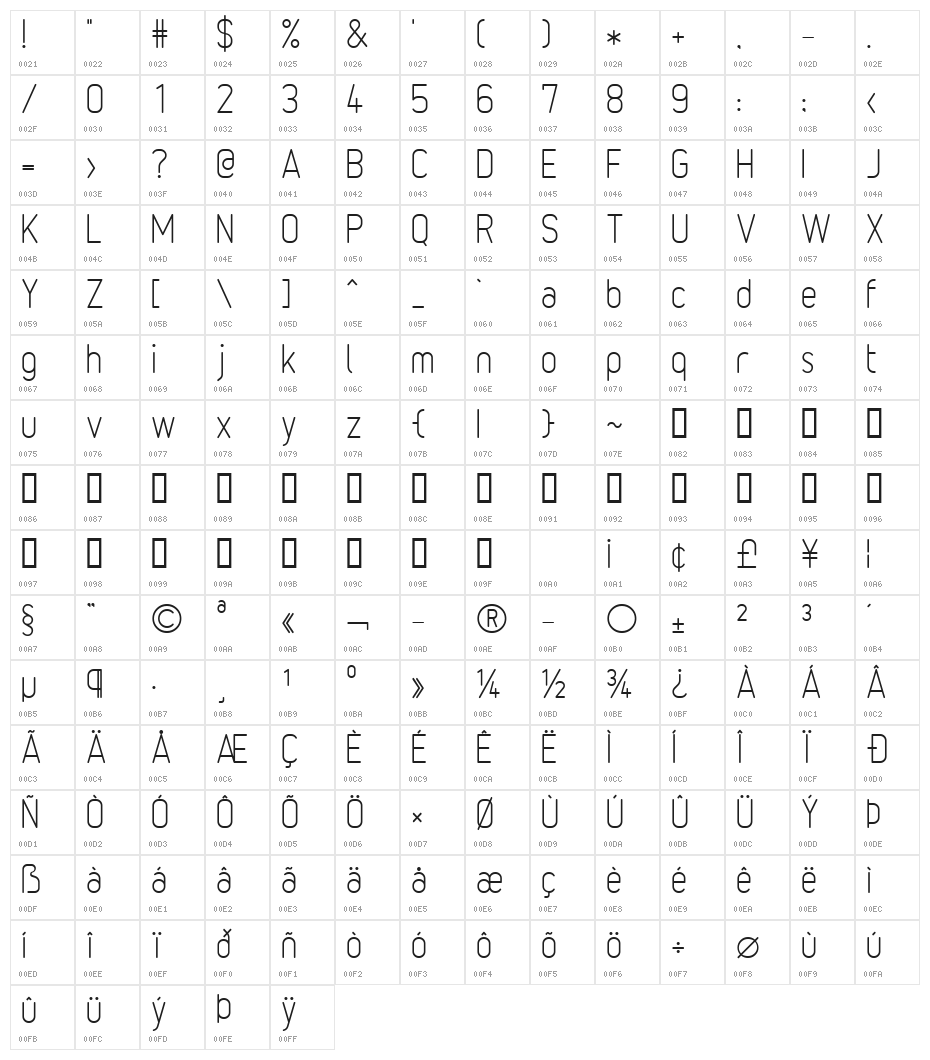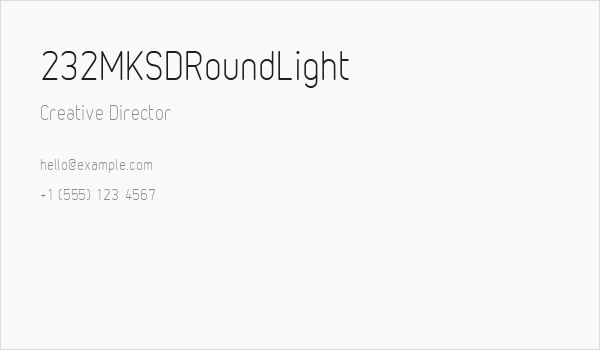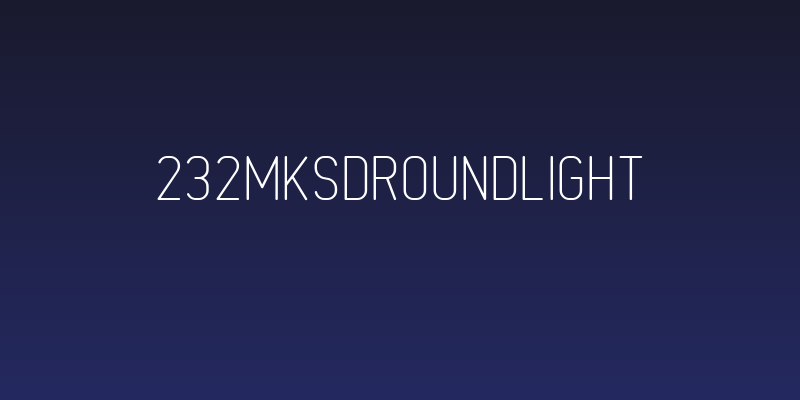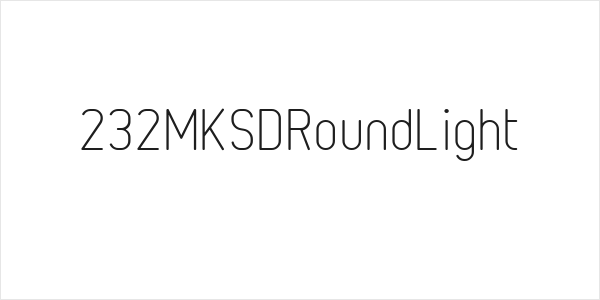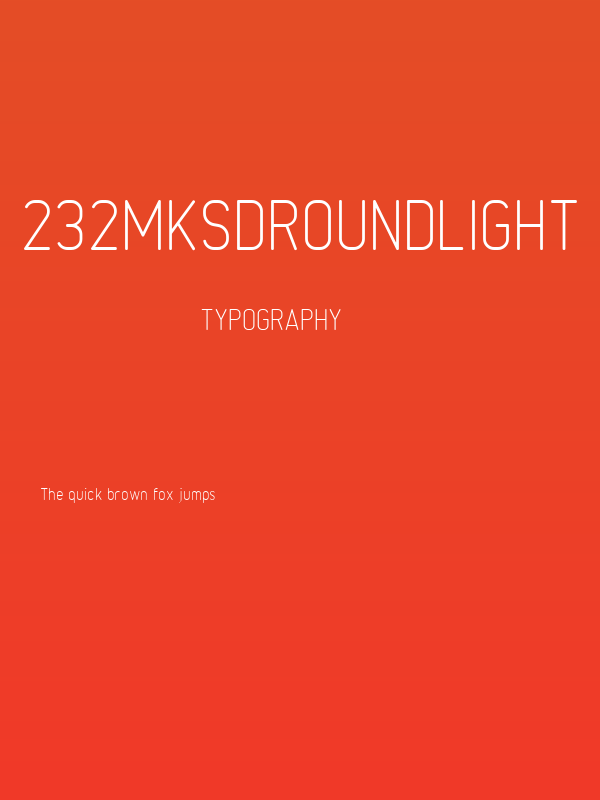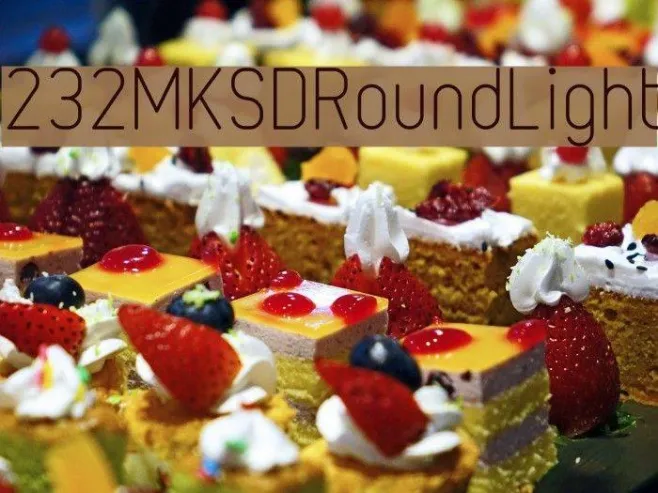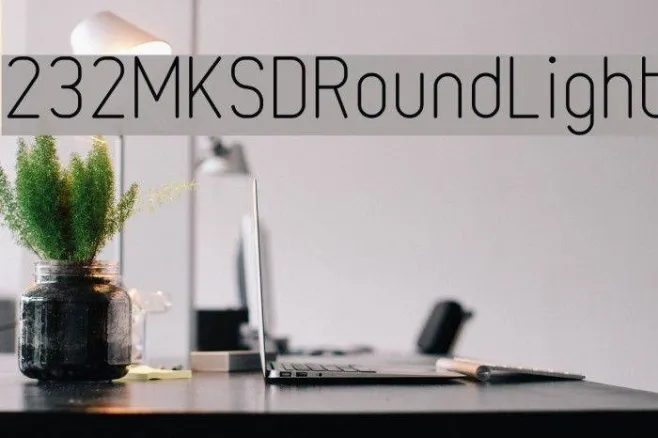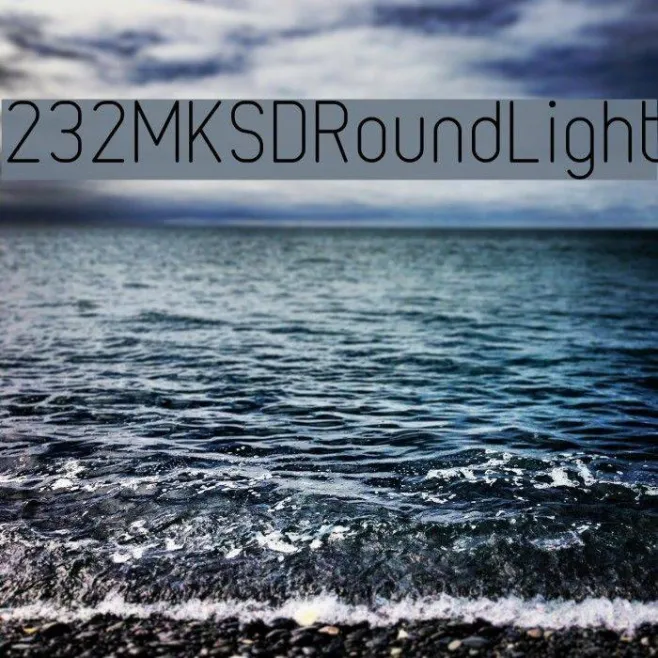
232MKSDRoundLight Font
232MKSDRoundLight Description
This font features a clean and modern sans-serif style with rounded edges, giving it a friendly and approachable appearance. The characters are evenly spaced, providing a balanced and harmonious look. The uppercase and lowercase letters maintain a consistent height, contributing to its uniformity. The numerals are clear and legible, matching the overall aesthetic of the alphabet. Special characters are designed with the same rounded and minimalist approach, ensuring coherence across all glyphs. This font is versatile and suitable for a wide range of applications, from digital interfaces to print media.